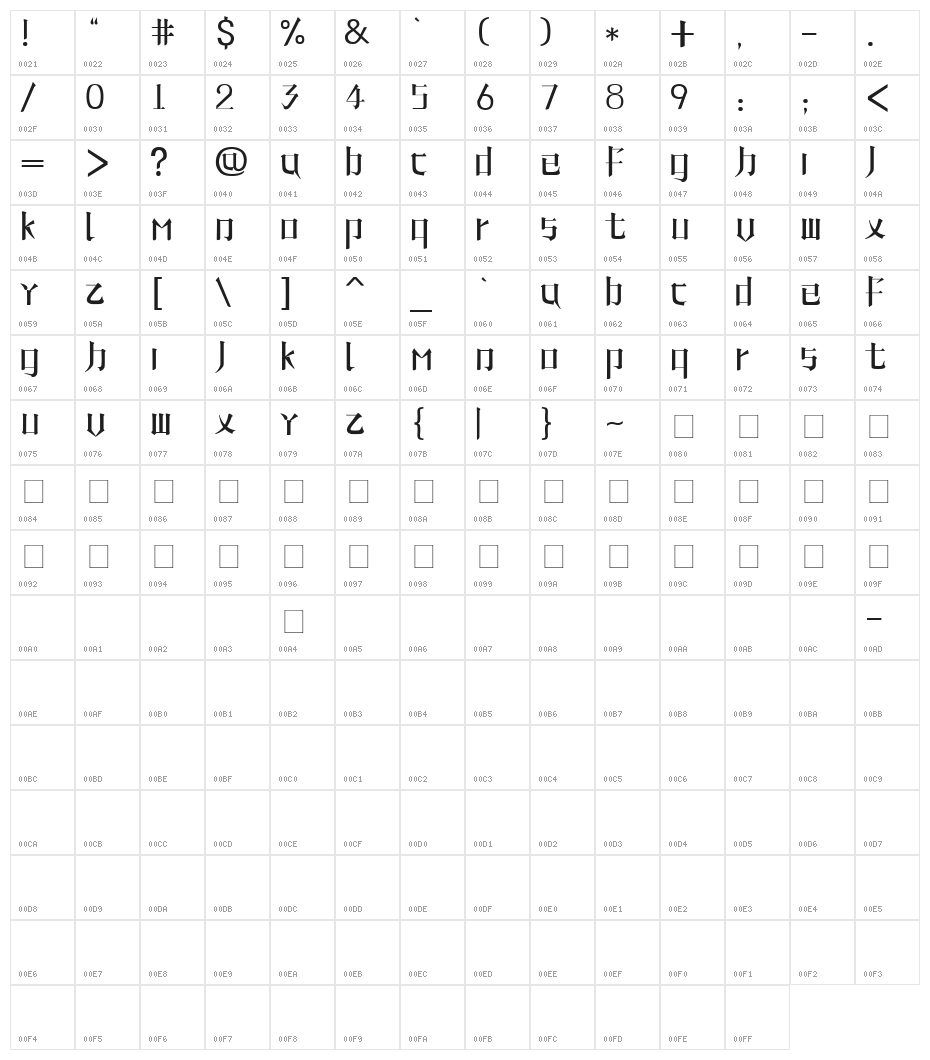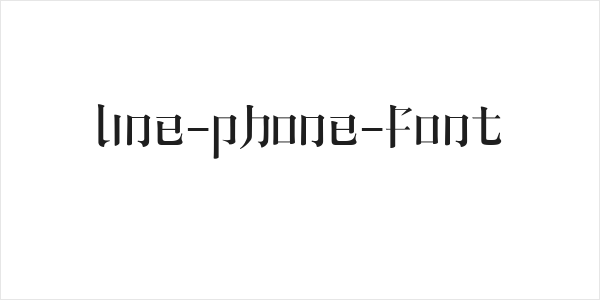
line-phone-font Font
line-phone-font Description
This font features a unique blend of modern and gothic elements, characterized by its sharp, angular lines and distinct geometric shapes. The uppercase and lowercase letters maintain a consistent height, creating a uniform appearance. The numerals are bold and clear, with a slightly futuristic touch. Special characters are designed with the same angular precision, ensuring a cohesive look across all glyphs. The overall style is striking and memorable, making it suitable for projects that require a bold statement.